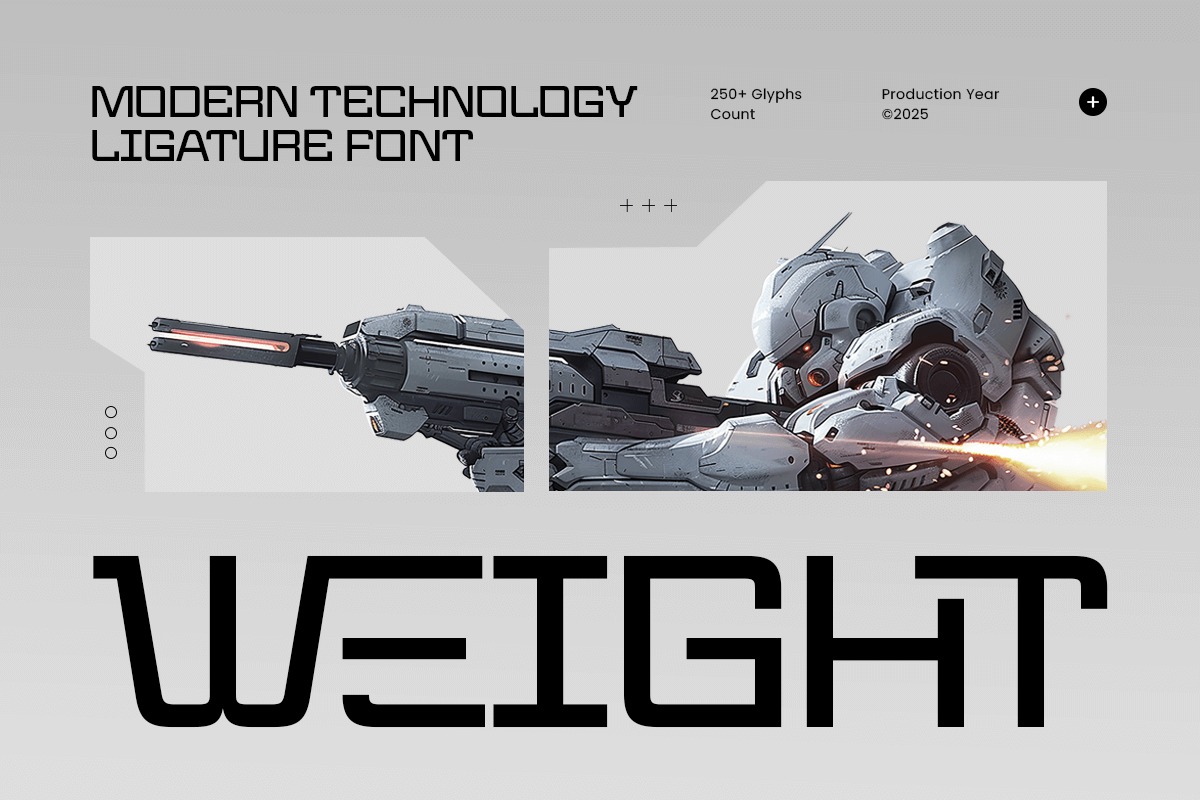
Weight Font
Weight Font is a flexible and reliable font created to fit multiple design needs, from branding and packaging to social media and editorial layouts. Weight – Modern Technology Ligature Font Weight is a sleek modern technology font featuring stylish ligatures, clean geometry, and a futuristic visual identity. Designed for tech branding and innovative digital products, Weight offers sharp precision and a refined structure that enhances logos, UI/UX layouts, app interfaces, product packaging, and corporate visuals.
Its advanced ligature designs create smooth, connected forms that deliver a premium and innovative typographic experience. Weight is perfect for startups, software companies, hardware brands, IT services, and creative studios seeking a strong, modern, and highly professional font to represent their technology-focused identity.